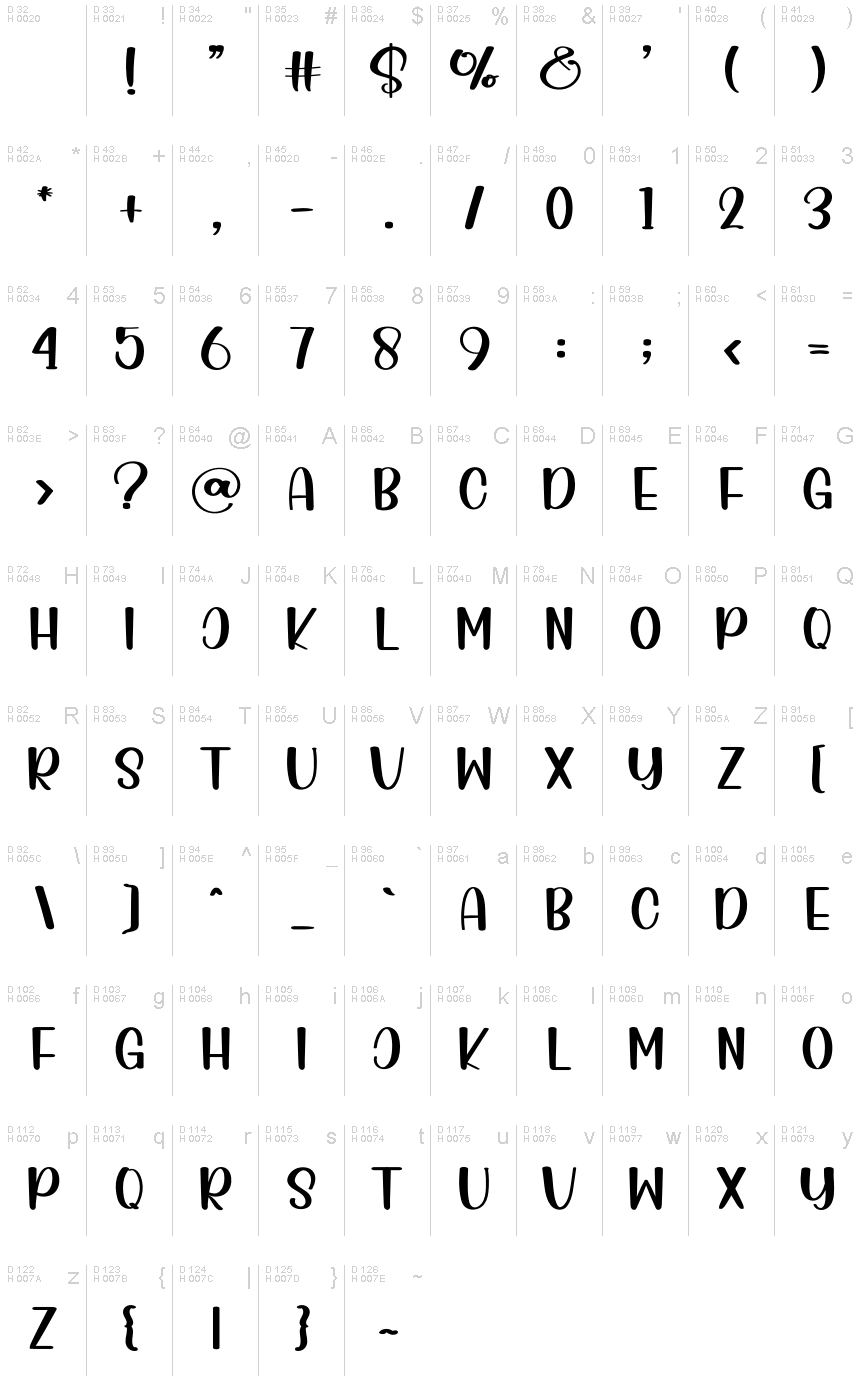
Action
Action by PiPi Creative is a handwritten font that effortlessly marries the spontaneity of freehand writing with the precision of digital design. Its aesthetic appeal lies in its ability to evoke the dynamism and energy suggested by its name, making it an exceptional choice for projects that require a personal touch with an assertive presence.
The individual character forms boast a fluidity that suggests movement and vivacity, ideal for creative endeavors seeking to make a bold statement. The strokes exhibit varying weights, providing a sense of depth and character often sought after in handwritten typefaces. This variety ensures that Action maintains readability while still offering an engaging visual texture.
Perfect for branding, advertising campaigns, or editorial designs where personality is paramount, Action's style exudes confidence without sacrificing charm. Whether applied to digital platforms or printed materials, this font is versatile enough to adapt to a range of creative contexts while consistently delivering impact and legibility.